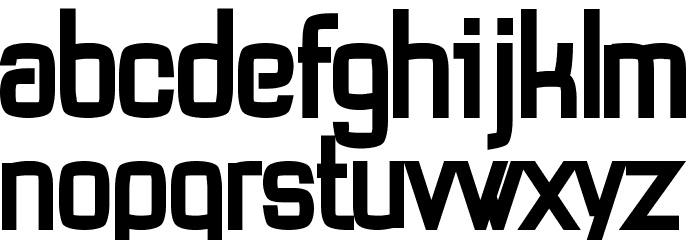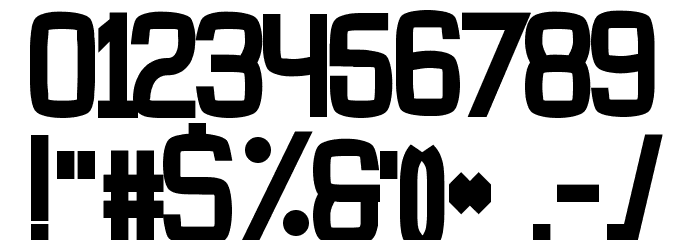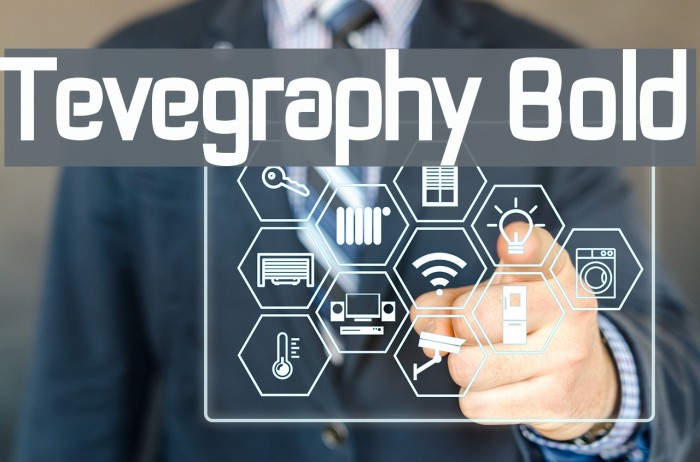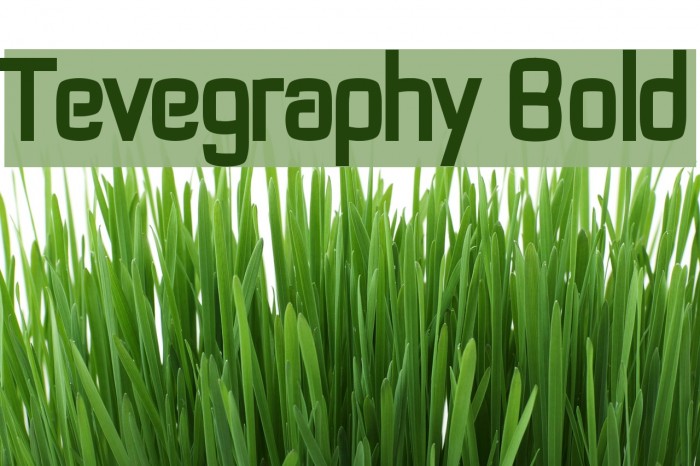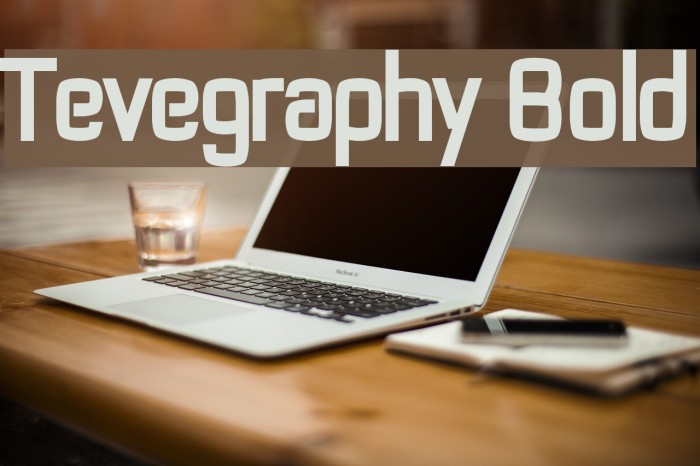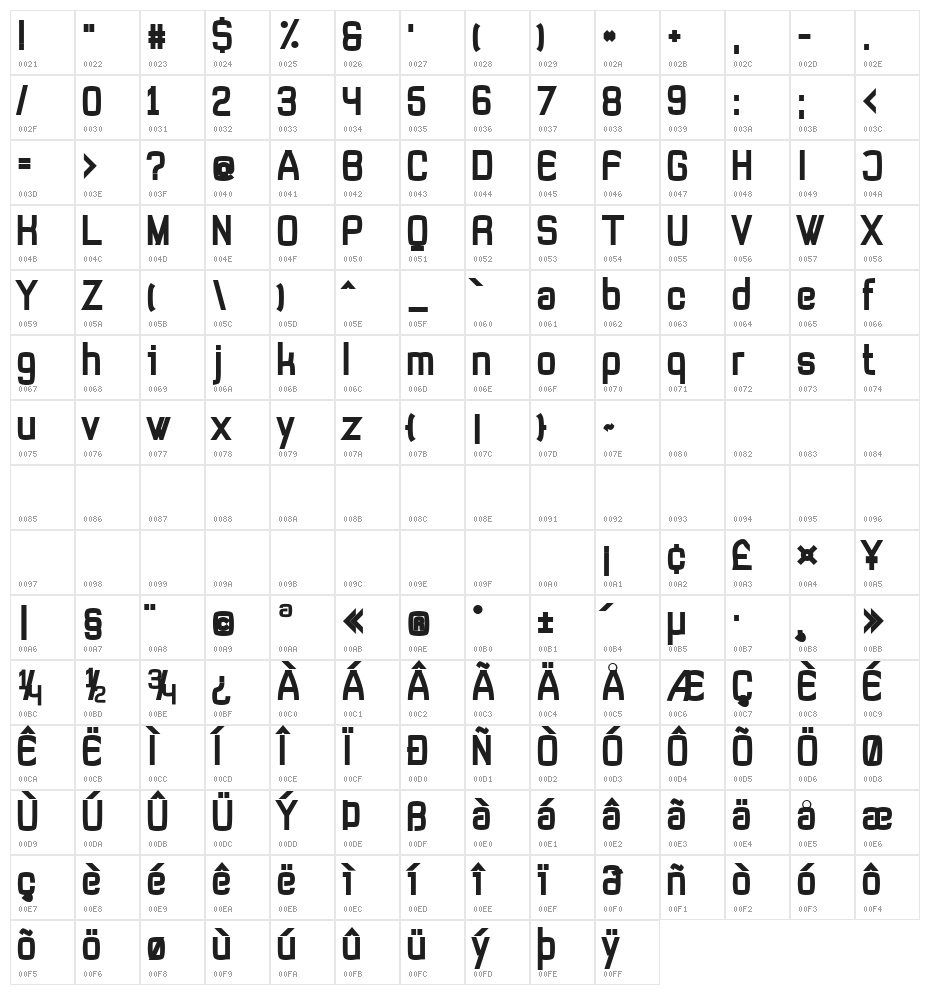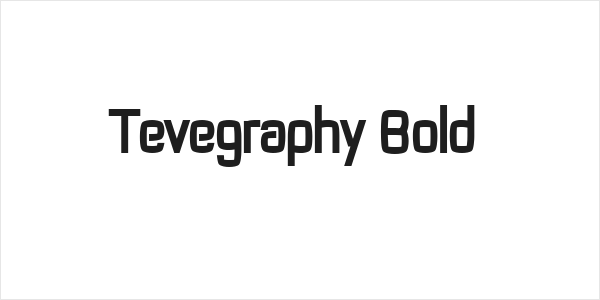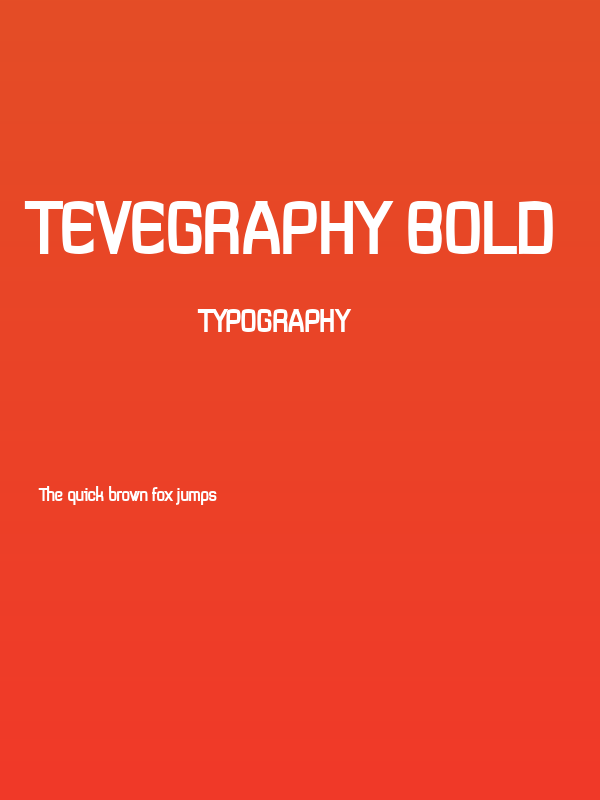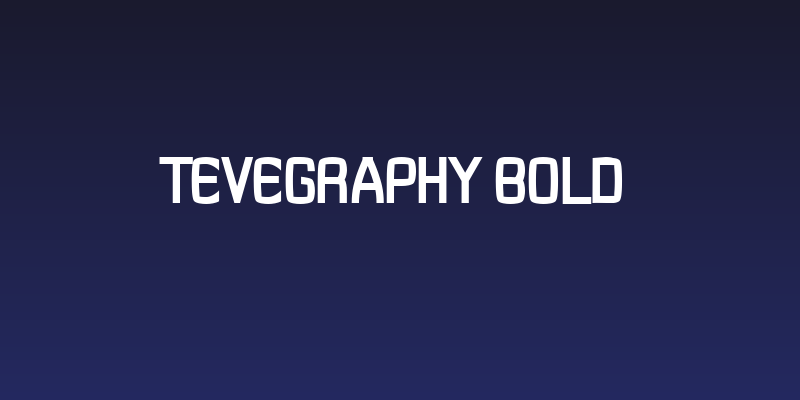
Tevegraphy Bold Font
This font features a bold and impactful design with a modern aesthetic. The characters are uniformly thick, providing a strong visual presence. The uppercase letters are slightly condensed, giving them a compact and sturdy appearance. The lowercase letters maintain a consistent weight, ensuring readability while retaining a bold look. The numerals are clear and distinct, matching the overall boldness of the font. Special characters are designed with the same thickness, ensuring uniformity across all glyphs. This font is ideal for projects that require a strong and assertive typeface.
A bold, modern font with a strong and impactful design.
- Proposed Projects: Ideal for headlines, posters, branding, and any project requiring a bold statement.